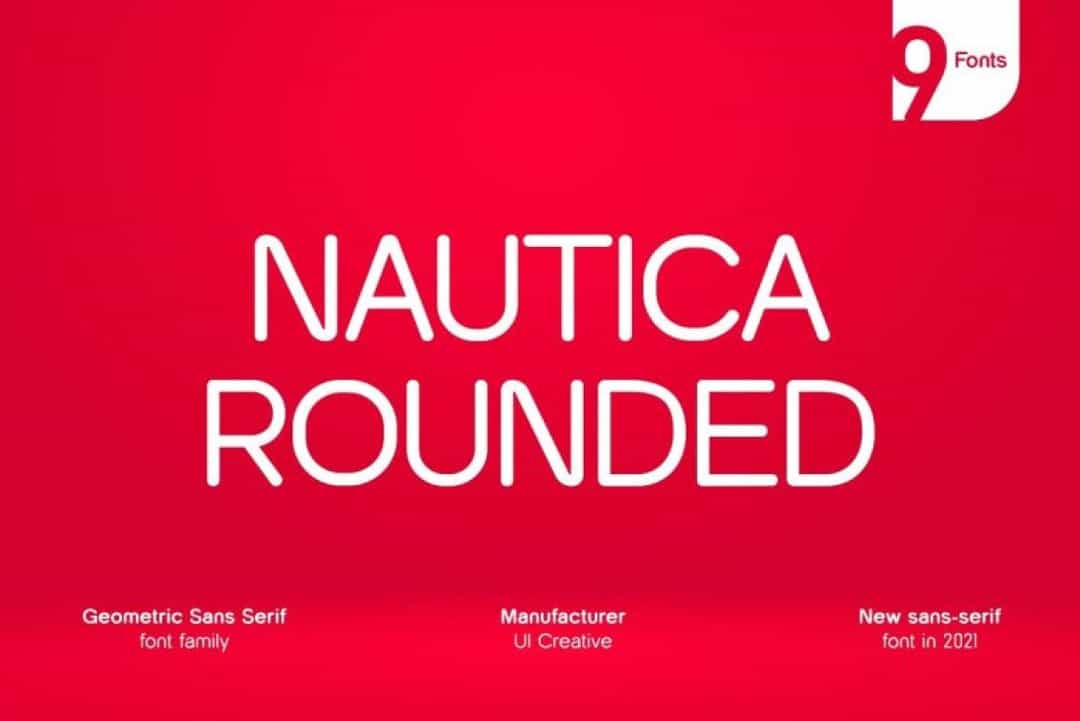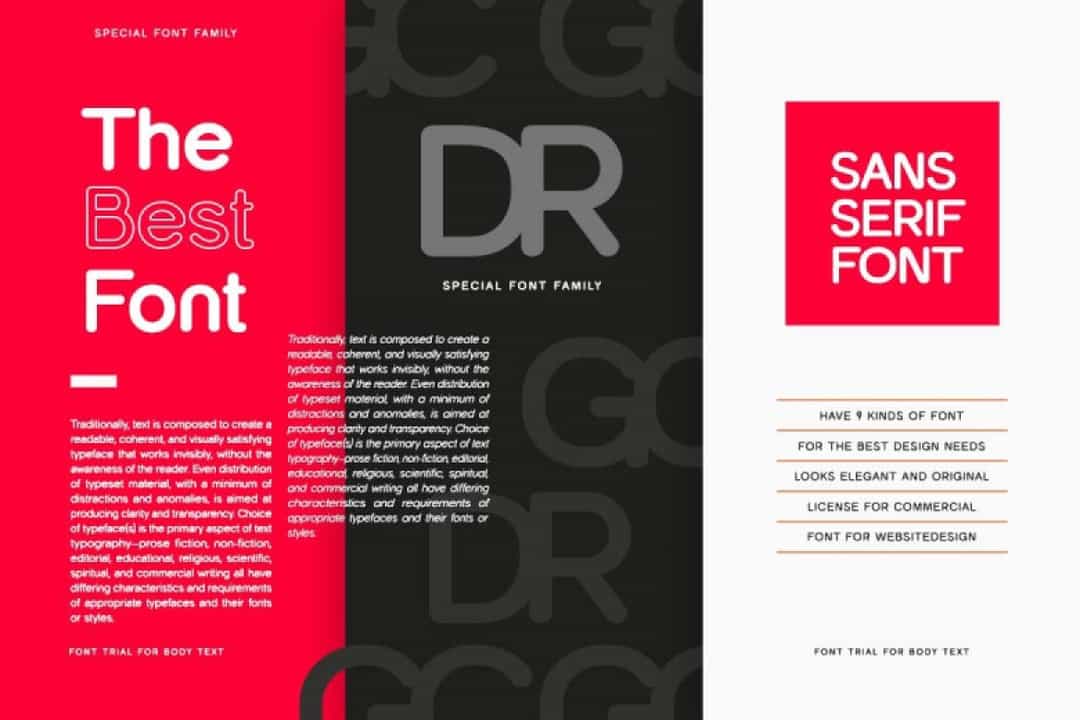
Nautica Roundedis an exquisite smooth sans-serif font family that features large chunky lines and charming curves, perfect for logos, stationery, signature wedding invitations, magazine or book covers with typographic quotes, headers for websites as well as clothing packaging design branding and much more.